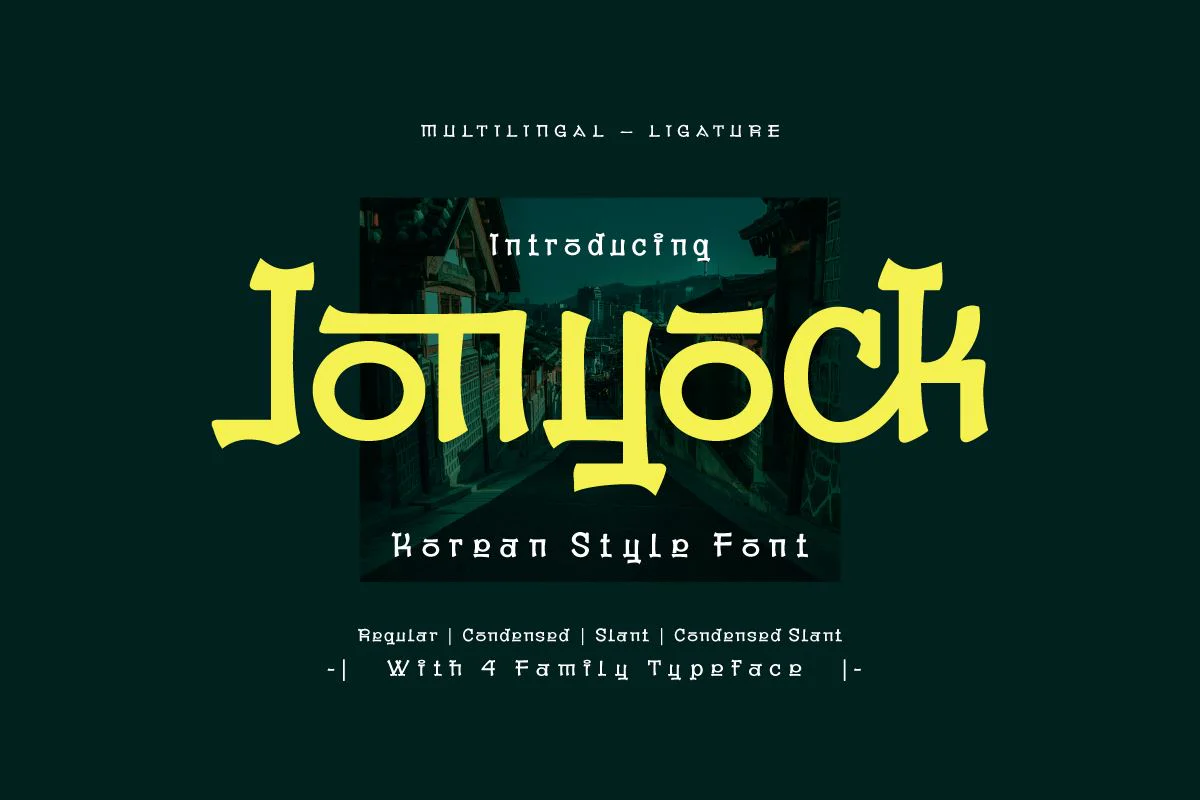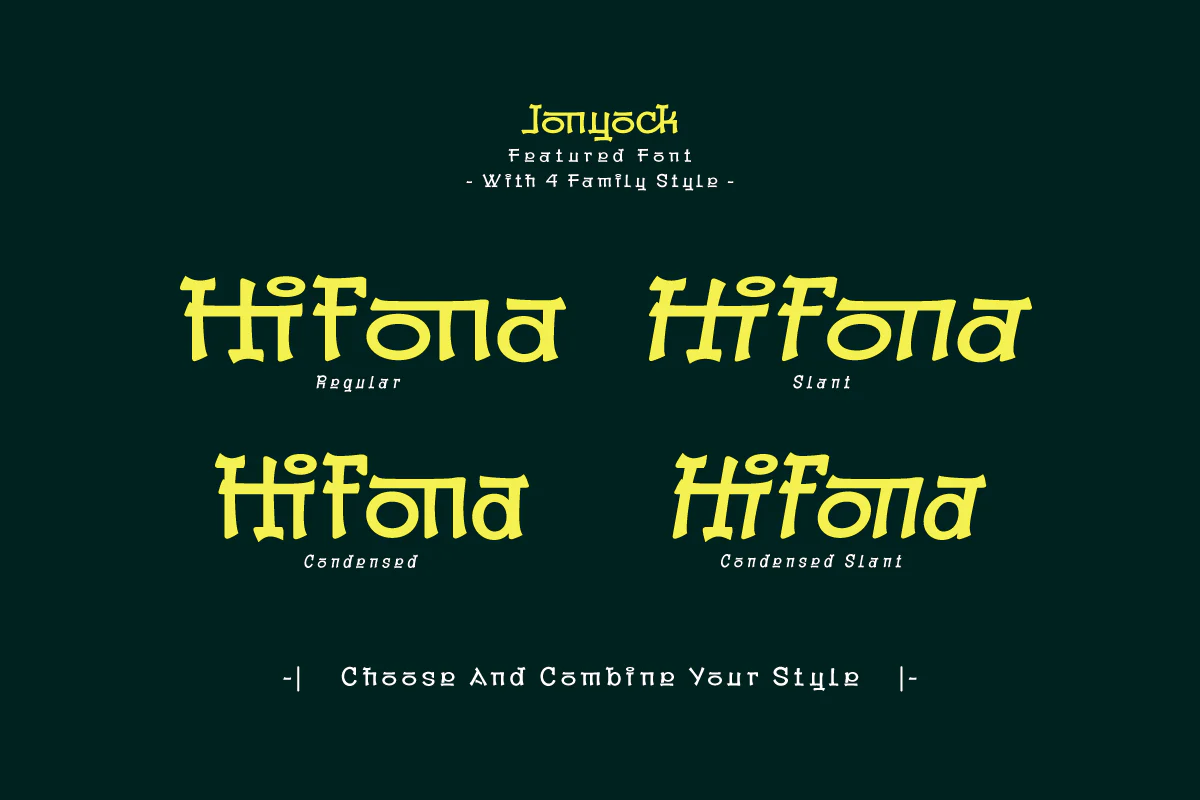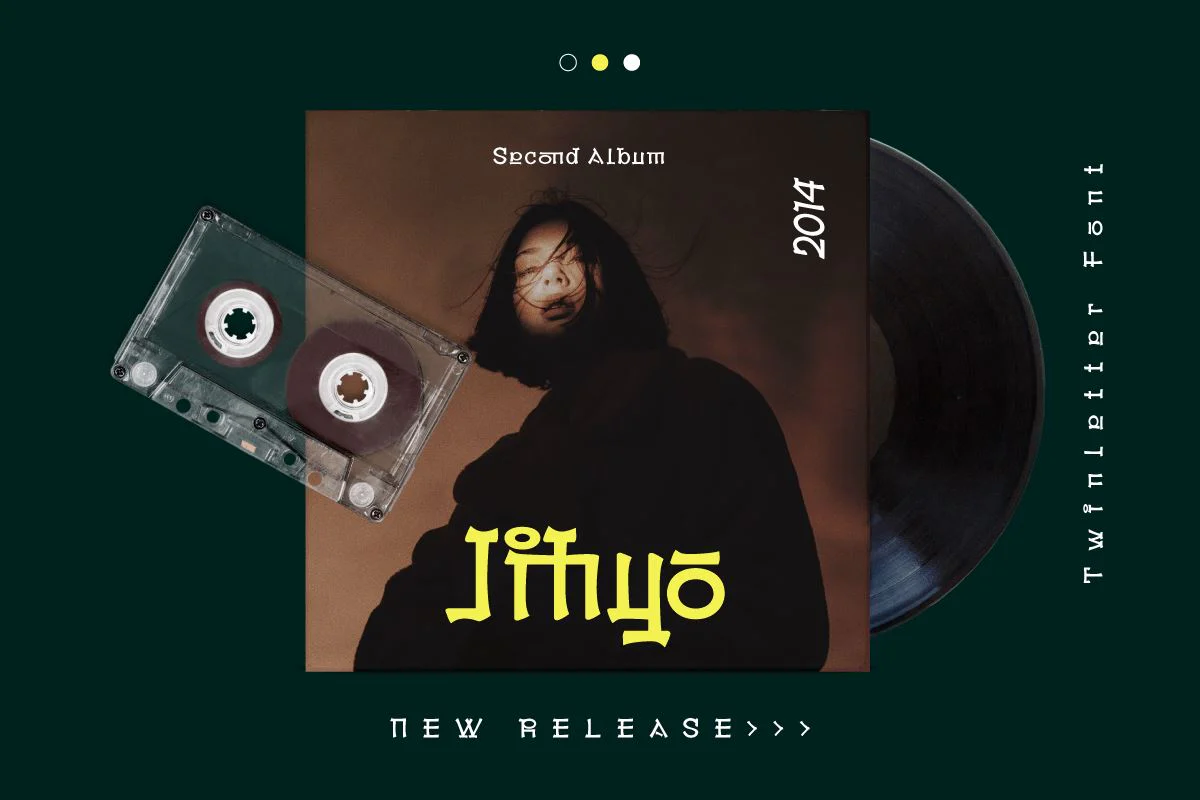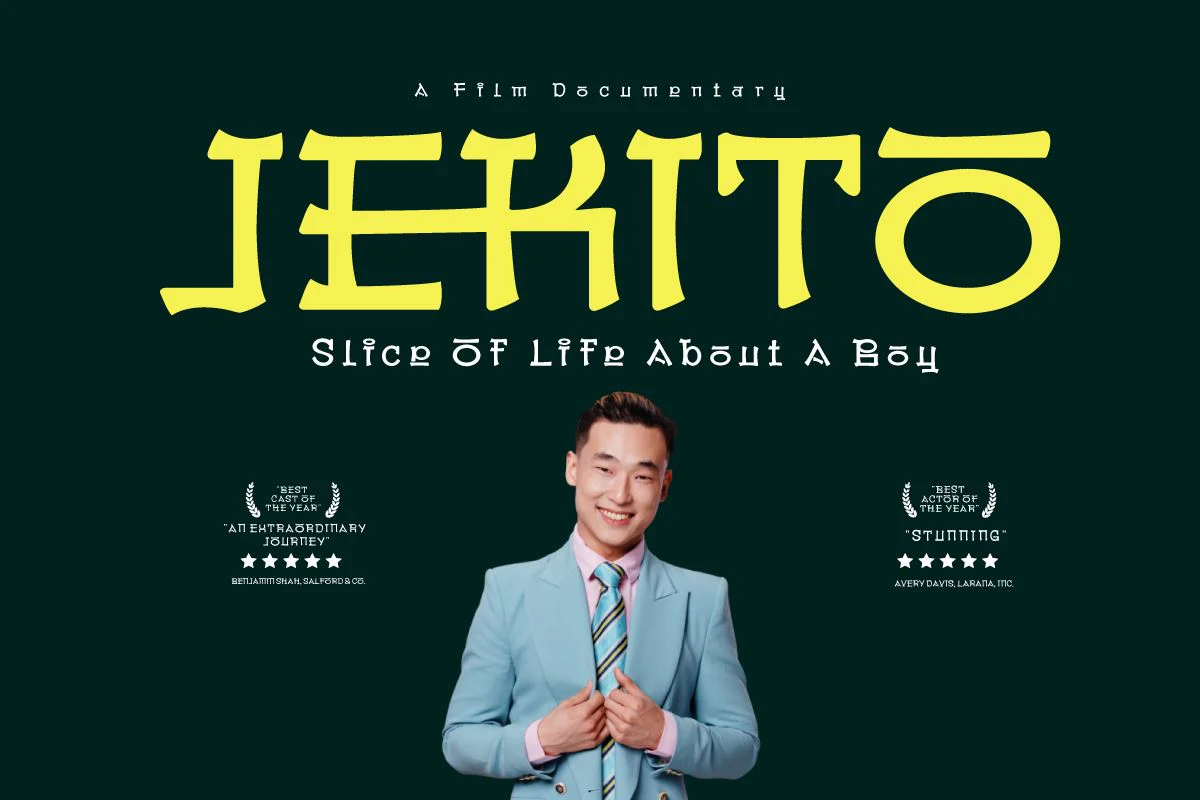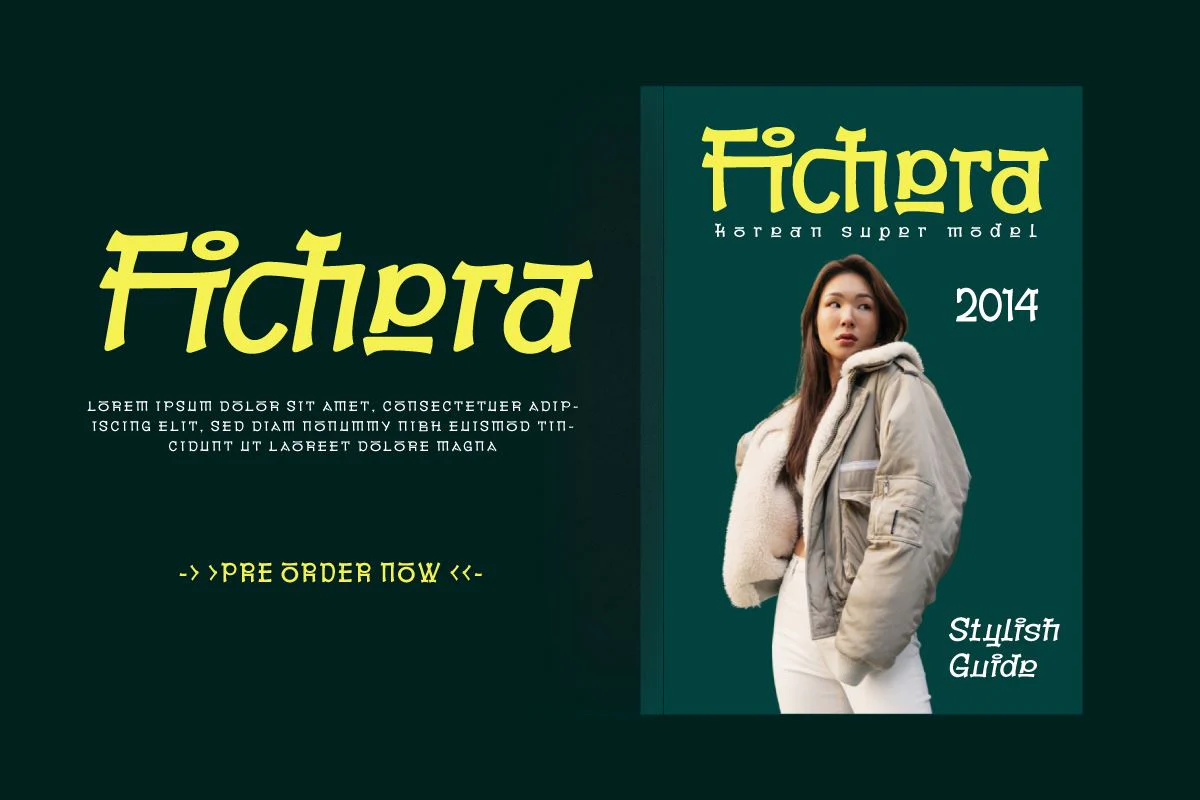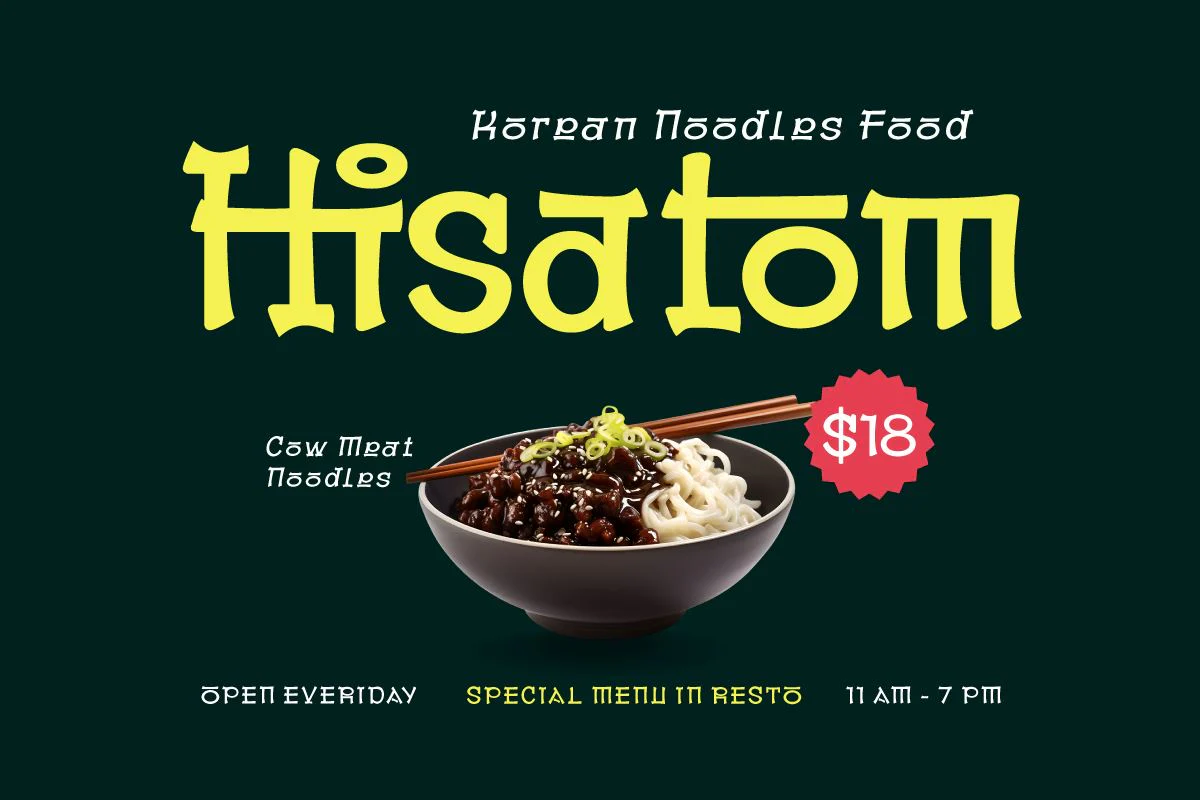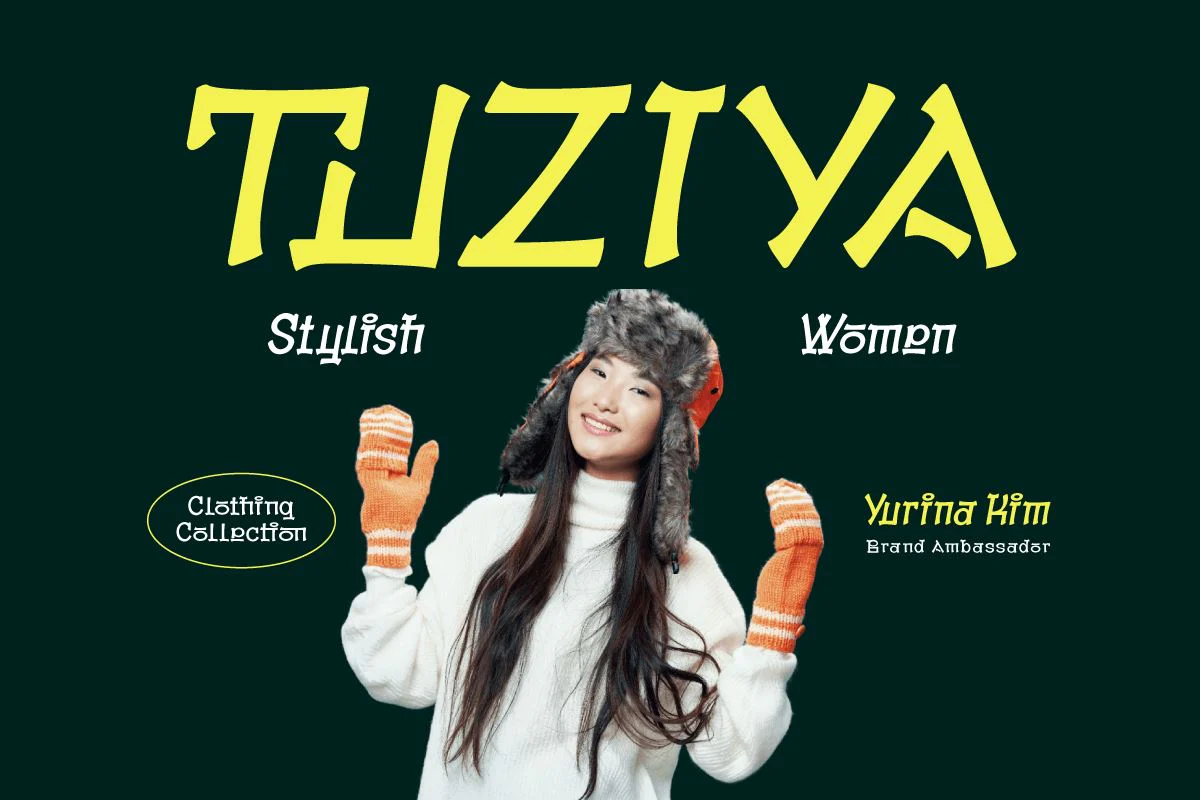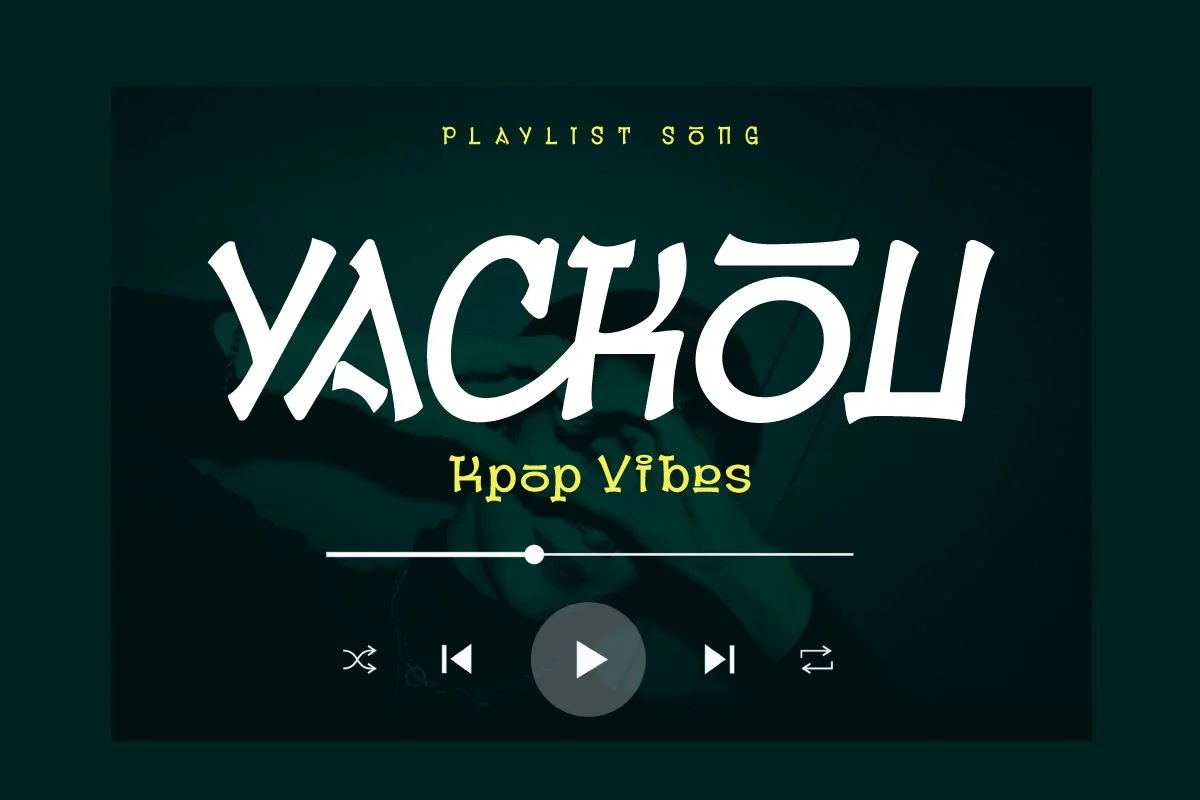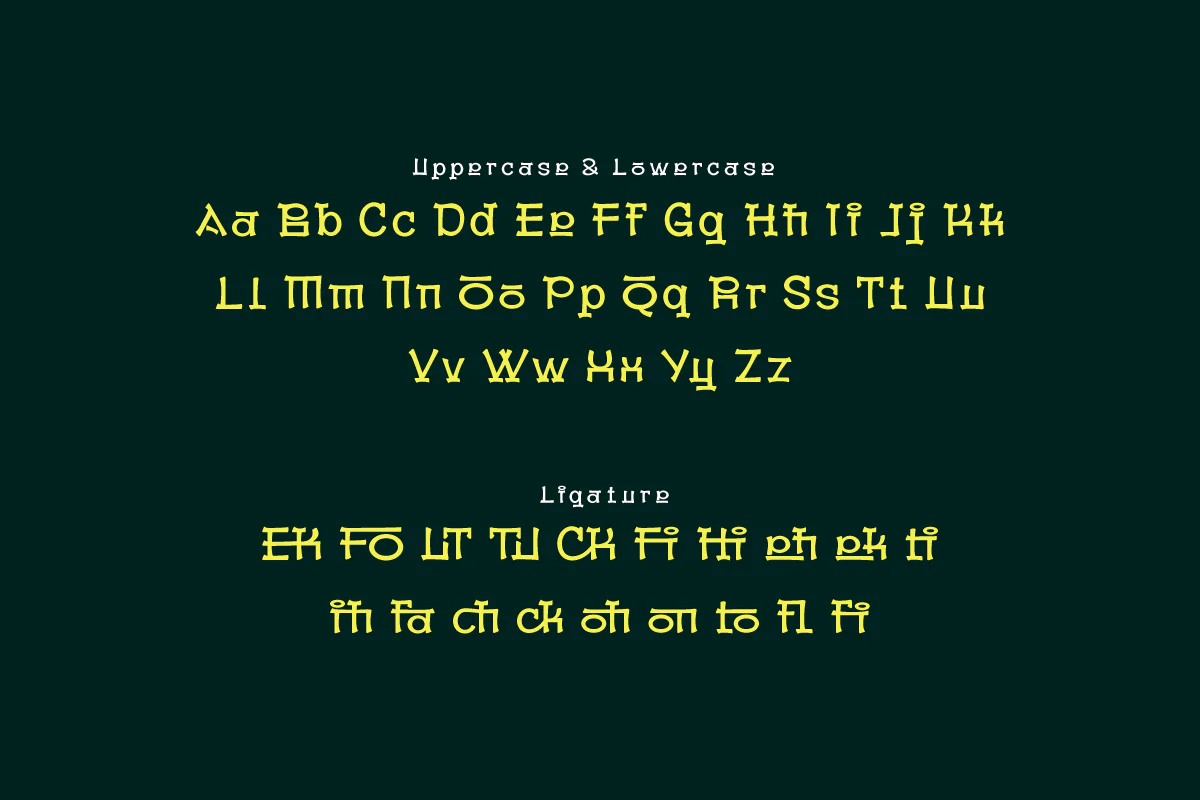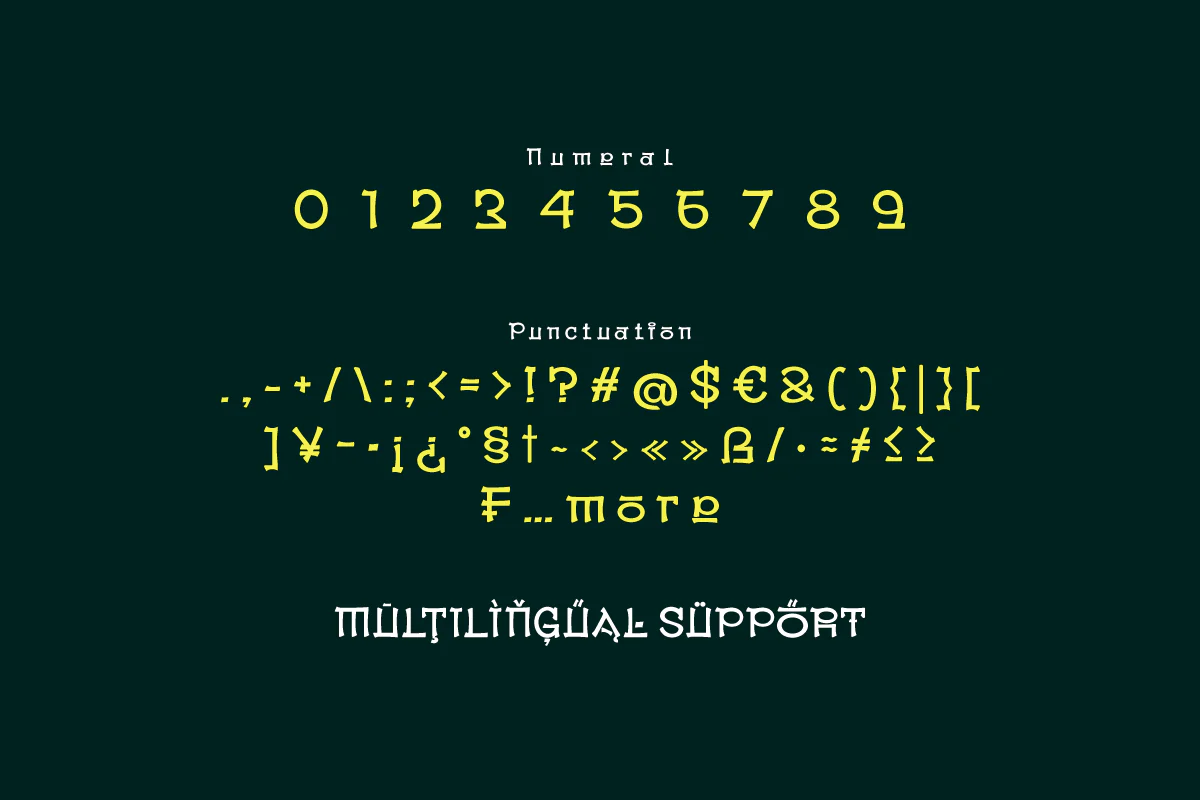
Jonyock - Korean Style Font
Embrace the elegance of Korean culture with Jonyock, a Korean font that combines tradition with a modern feel. With each letter exuding charm and gentleness, Jonyock takes you on a journey through the unique beauty of Asia.
Jonyock is a great choice for branding projects, logo typography, and special events that want to add an Asian touch to their designs. The classic but unique design gives a different and charming feel to each piece.
Let Jonyock be your guide in exploring the beauty of Korean culture. With this font, bring stunning elegance to your designs, making every project a representation of timeless beauty.